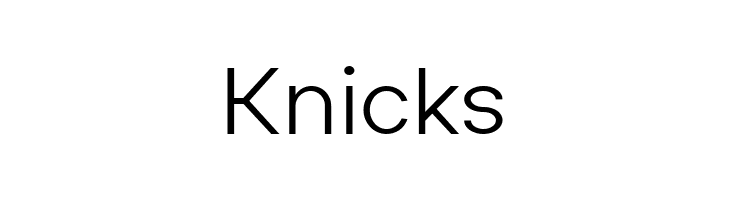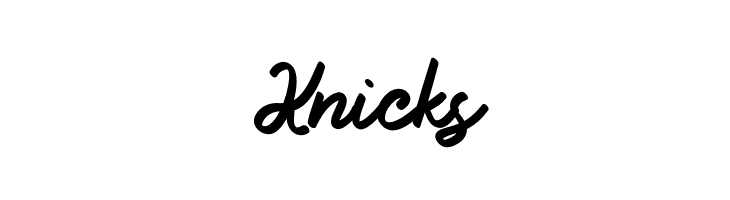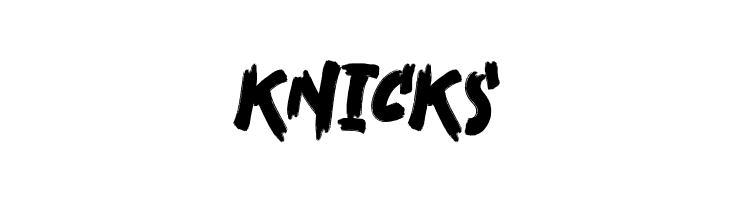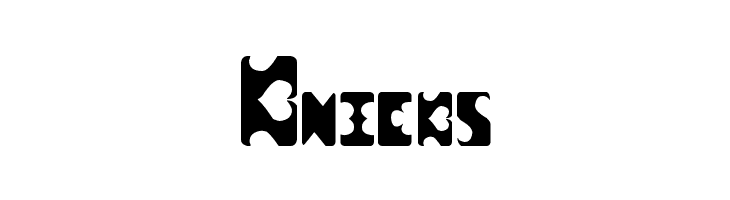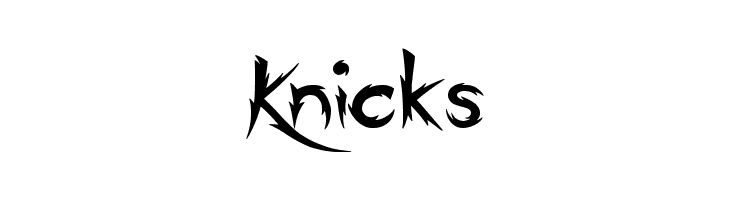
• Ace Attorney Regular
A pixelated, monospaced font with a retro digital style.
• ace gaffigan
A playful, bold font with rounded, thick strokes and a whimsical touch.
• Ace Joker
A bold, dynamic script font with interconnected characters and a lively style.
• Ace Nova Brush
Bold brush script with a hand-painted look.
• Ace Nova Personal Use
Bold geometric sans-serif font with a modern style.
• Ace Records
A bold, dynamic font with sharp, angular lines and dramatic curves.
• ACED IT
• Aceh Light
A clean, modern typeface with uniform stroke thickness and balanced proportions.
• Acelire Rosse
An elegant, flowing script font with smooth, cursive strokes and graceful curves.
• Acephimere Thin
A sleek, modern font with thin lines and a clean, geometric design.